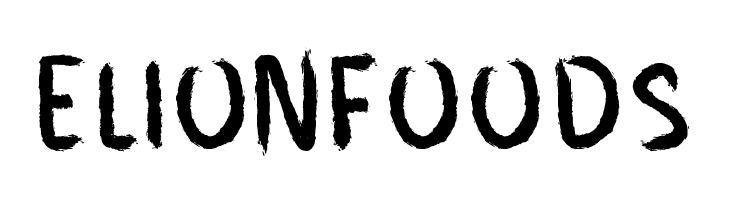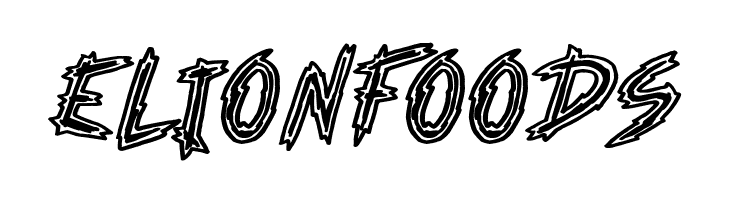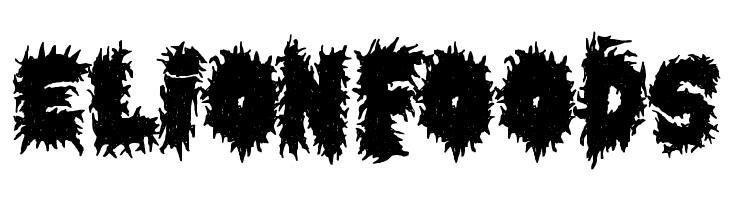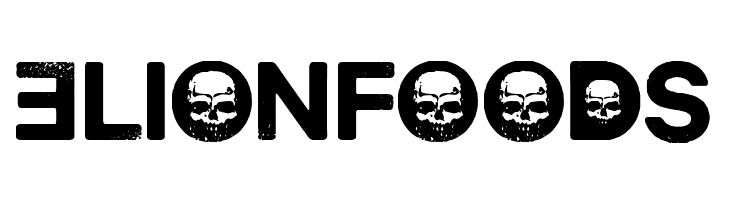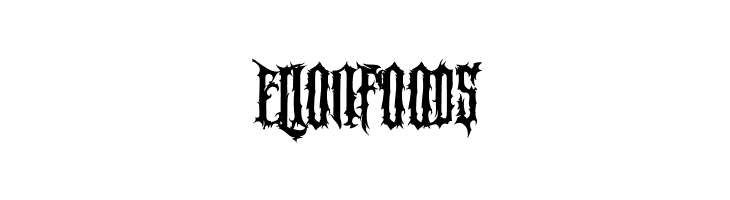
A spooky, hand-drawn font with irregular, twisted lines.
A bold, distressed font with skull motifs, perfect for horror themes.
A gothic, horror-themed font with intricate, thorn-like embellishments.
A bold, gothic font with sharp, jagged edges and a spooky aesthetic.
A bold, jagged font with an eerie, horror-inspired style.
A bold, jagged font with a horror-metal aesthetic, featuring sharp, thorn-like edges.
A bold, dripping font ideal for horror and Halloween themes.
A bold, dripping font ideal for horror or graffiti themes.
A bold, jagged font ideal for horror-themed designs.
A chilling, jagged font ideal for horror-themed designs.